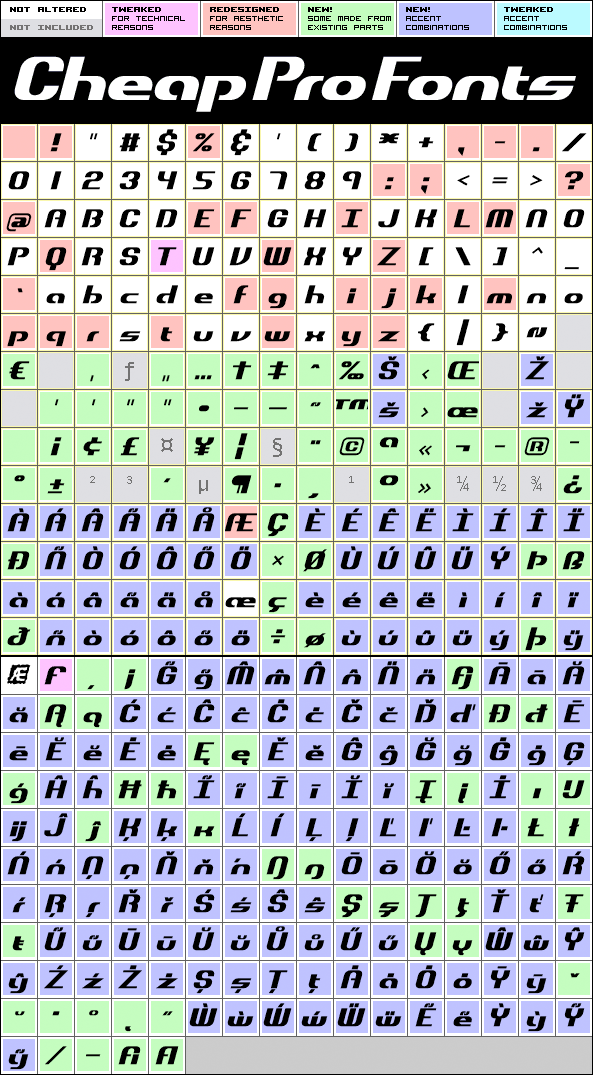
Dynamic Slanted BRK Pro
Dynamic Slanted BRK Pro by Brian Kent
Brian Kent
372 glyphs!
(97 in original)
80 class kernpairs
= 4256 kerning pairs
(1810 in original)
OpenType features:
Contextual letterforms
A 15 degree slant, and this speedier variant of Dynamic BRK Pro is ready for use (for those who use software where you cannot slant the upright version yourself ;)
Dynamic Slanted BRK Pro is a professionally reworked font that contains an extended character set for setting text in 65 languages requiring more than the basic A-Z!